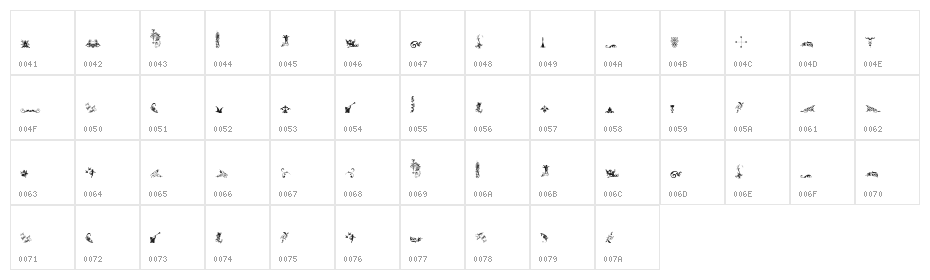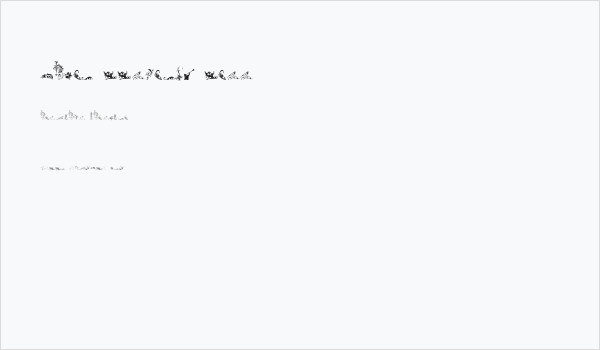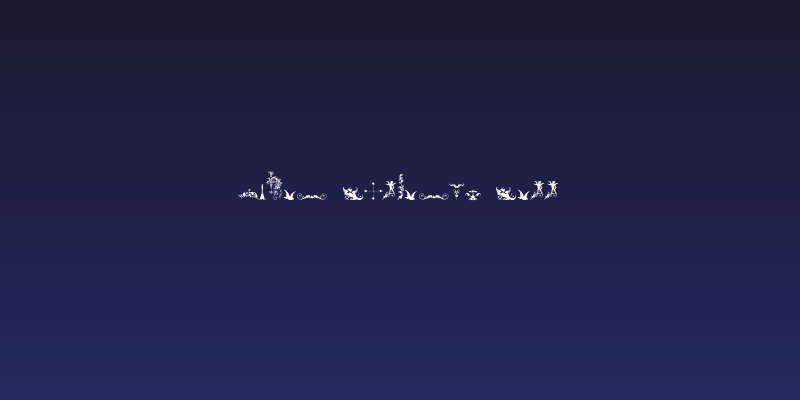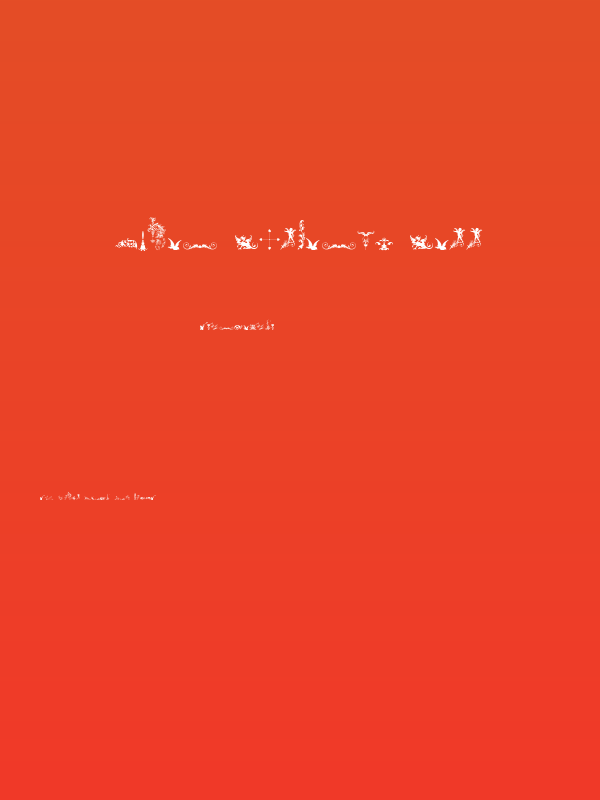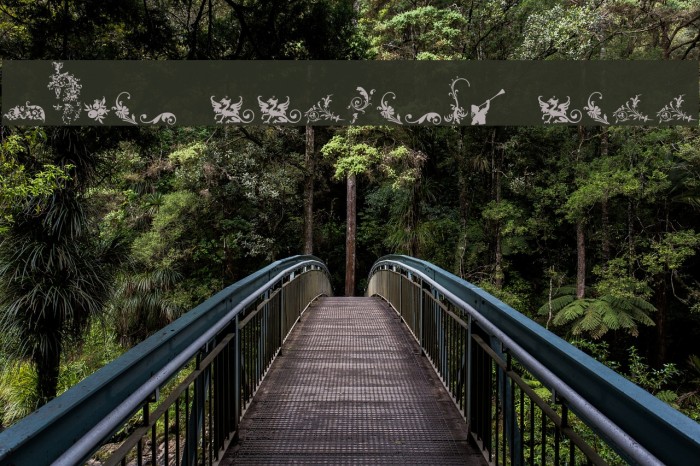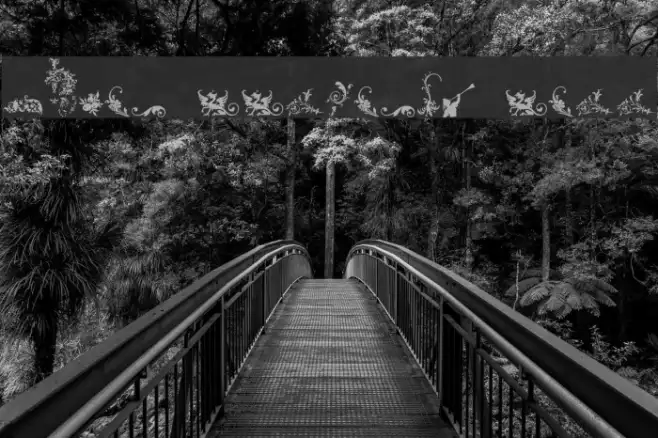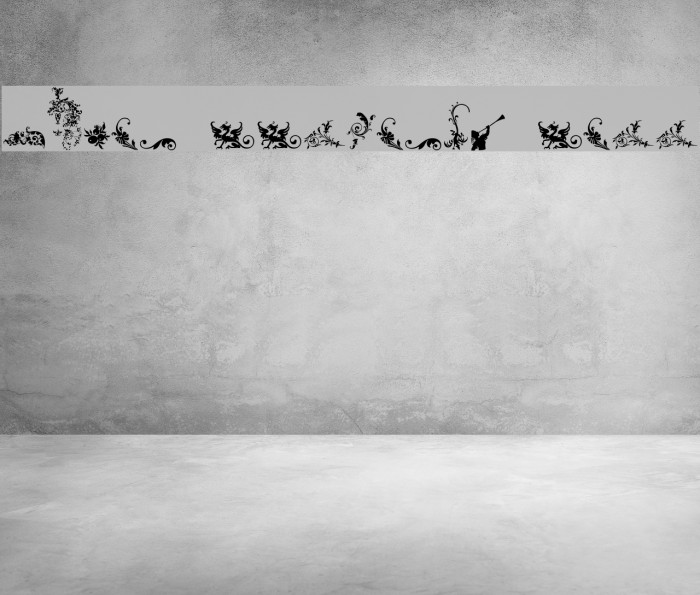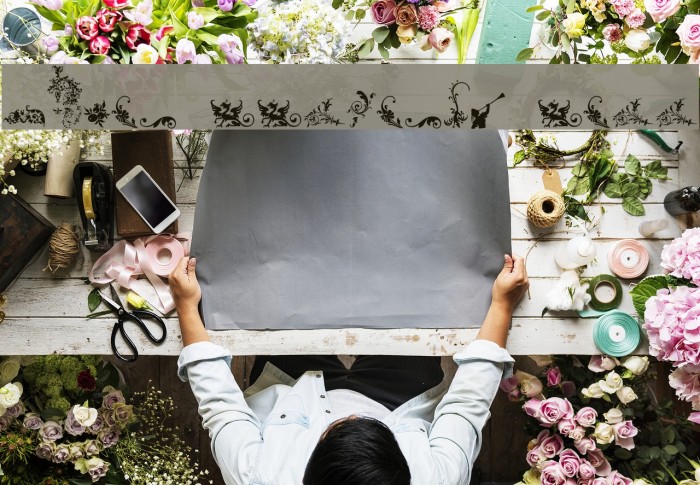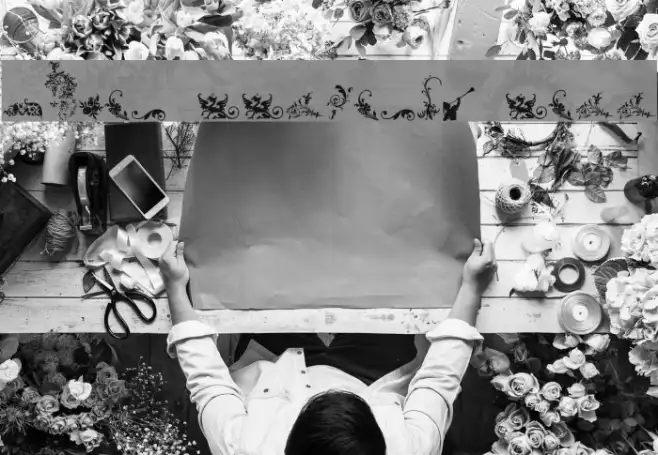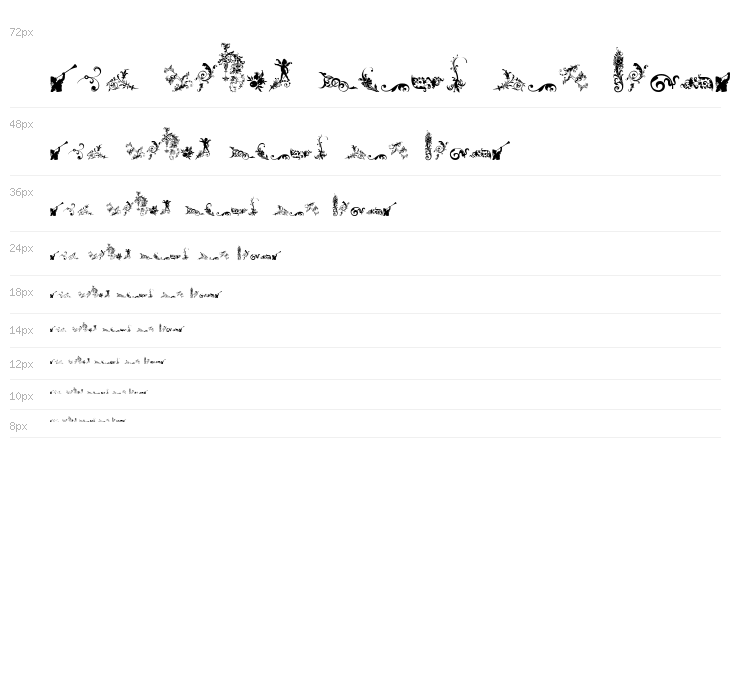
Micro Fleurons Free Font
Micro Fleurons Free Description
This collection of ornamental designs features intricate floral and decorative motifs, reminiscent of classic fleurons. Each element is highly detailed, showcasing a variety of organic shapes, including leaves, vines, and mythical creatures. The designs are symmetrical and balanced, making them ideal for embellishing text or creating borders. The style is reminiscent of vintage or classical art, with a touch of whimsy due to the inclusion of fairy-like figures. These elements can be used to add a touch of elegance and sophistication to any project.
| Use Case | Logos, Decorative elements |
| Proposed Projects | Ideal for invitations, decorative borders, book covers, and vintage-themed designs. |